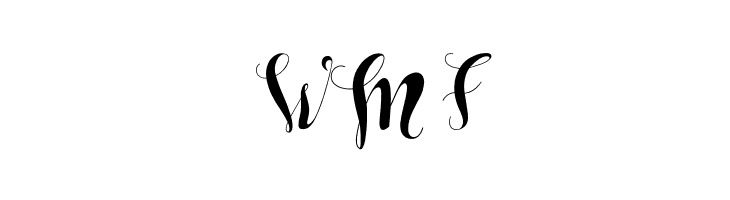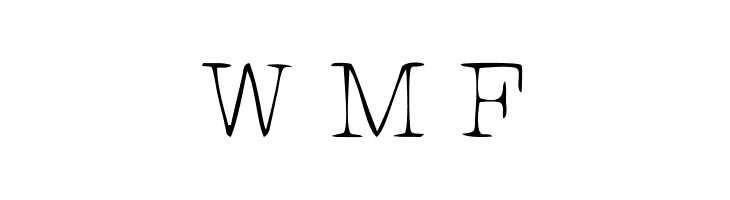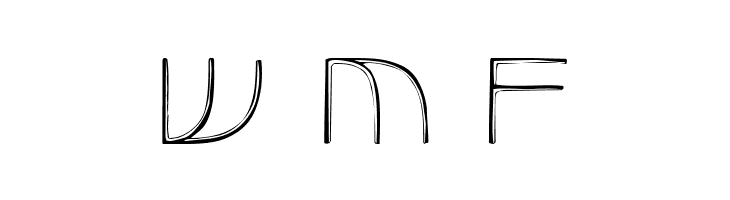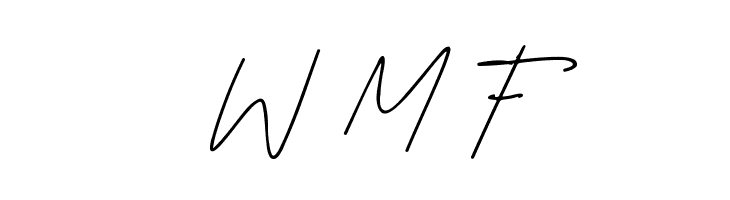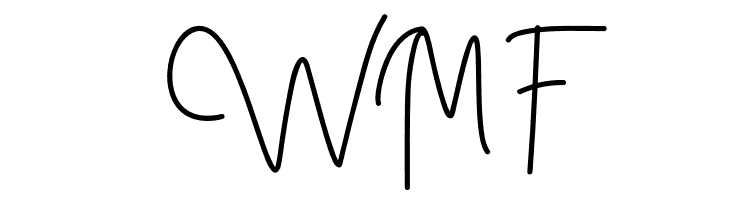
A vintage script font with elegant, flowing characters and a distressed texture.
A fluid and elegant script font with sweeping curves and graceful lines.
An elegant, flowing script font with intricate swirls and flourishes.
A graceful, handwritten script font with a casual elegance.
A sleek, elegant italic font with thin, elongated letterforms and a subtle slant.
An elegant, italic script font with graceful curves and a sophisticated style.
A modern, elegant script font with flowing, handwritten characteristics.
A vintage typewriter-style font with a light, elegant touch.
A bold, decorative font with contrasting strokes and playful curves.
An elegant and flowing script font with graceful, cursive letterforms.
A modern, decorative font with elongated, flowing strokes and artistic flair.
A modern, slightly slanted font with clean lines and balanced spacing.